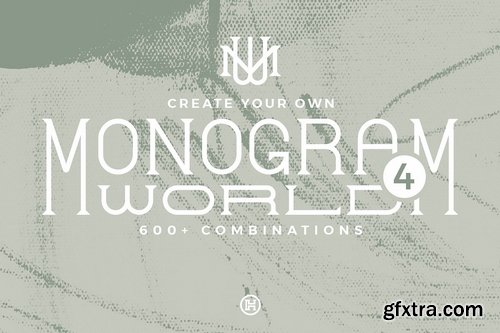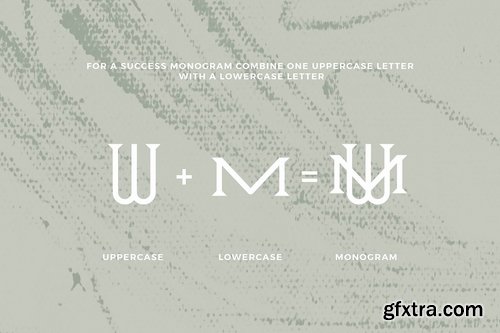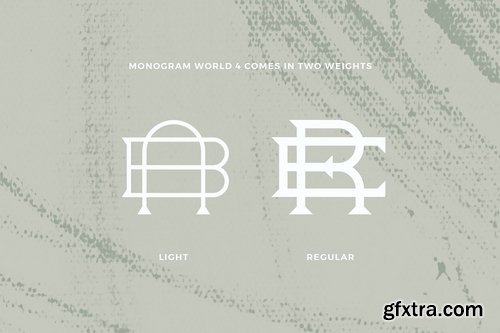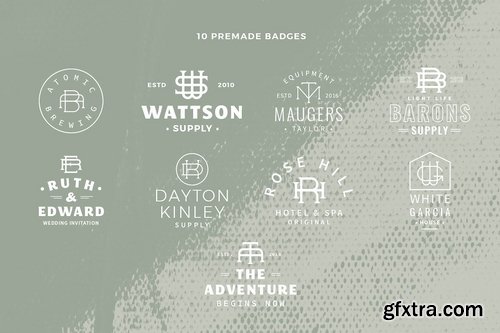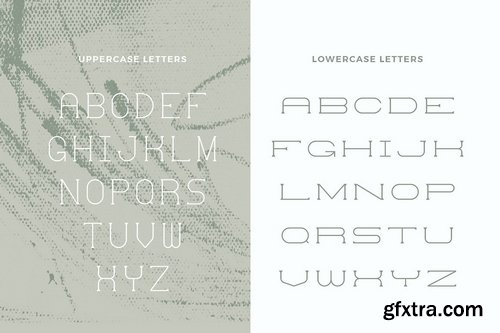
Monogram World
This package of monograms will help you save time and money when you create a monogram badge. The letters were created so you can build a monogram very easy, just select an uppercase letter and a lovercase letter, place them on top of each other, adjust them to have the same center, and you will get an original monogram. Combining all the letters of a font you can get more than 600 monograms.